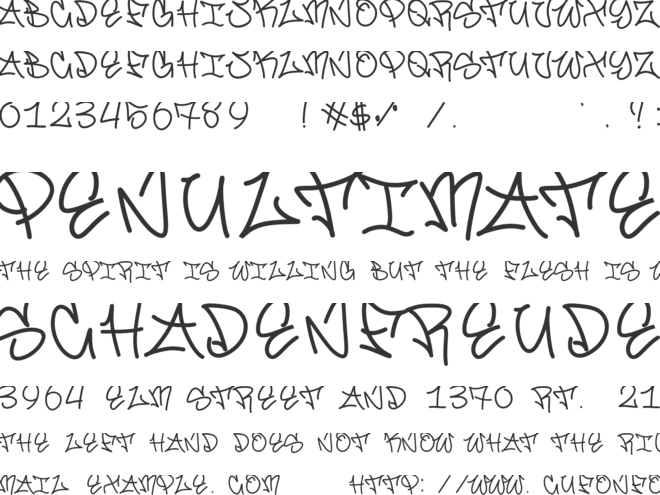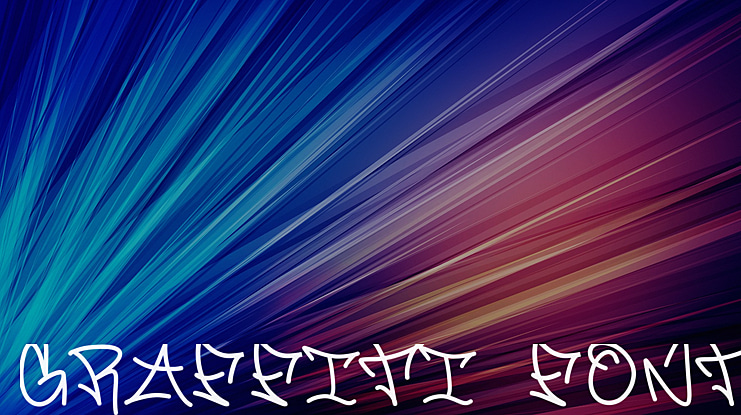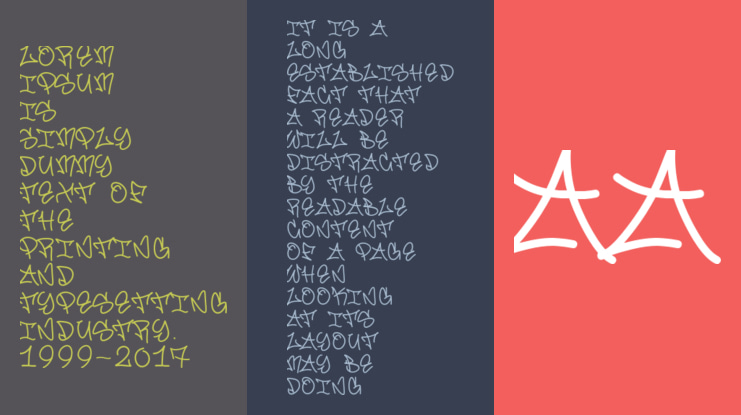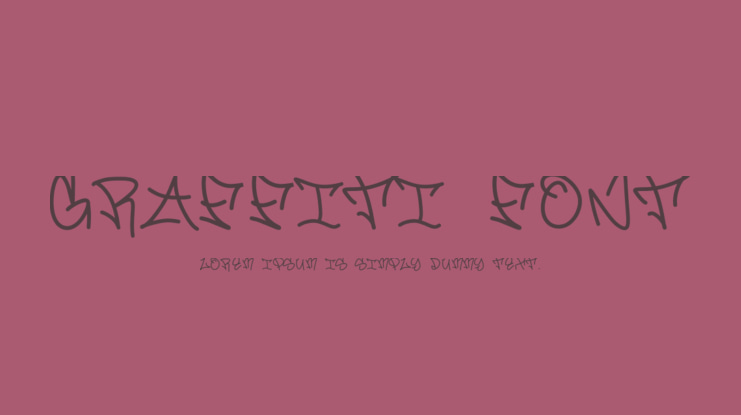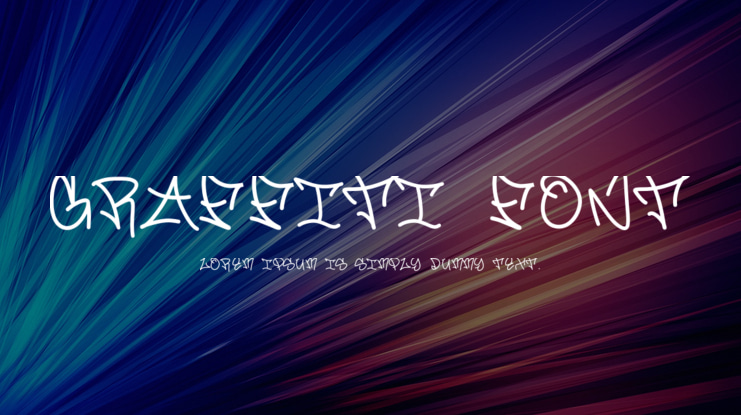
Graffiti font
This is the first font I ever created. There are still some problems with the letters, and only capital letters work. But above all, it looks good I gues.